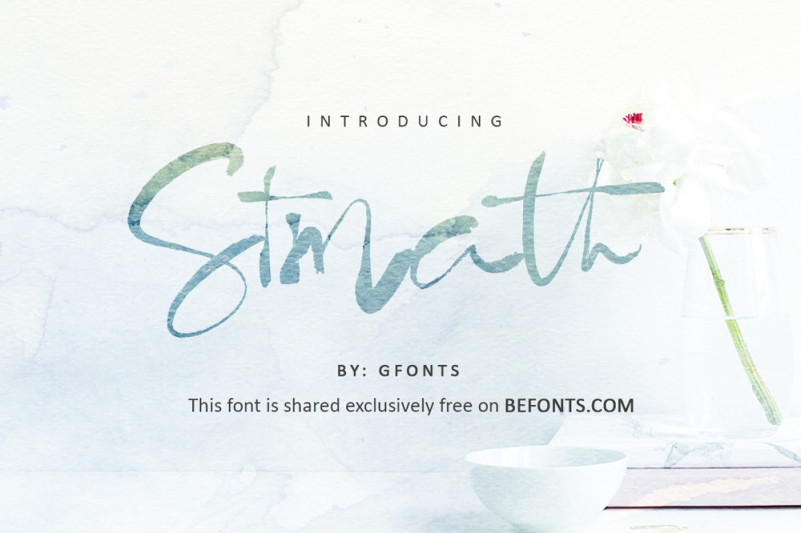
Stmath Calligraphy Font
Stmath Font is a modern calligraphy script font with thin upstrokes and super heavy downstrokes. Inspired by the modern calligraphy lettering and try to create them with brush & ink. Every single letters have been carefully crafted to make your text looks beautiful. This modern calligraphy font is perfect for all your design projects like wedding logos, signatures, packaging design, wedding stationary, modern websites and print projects.